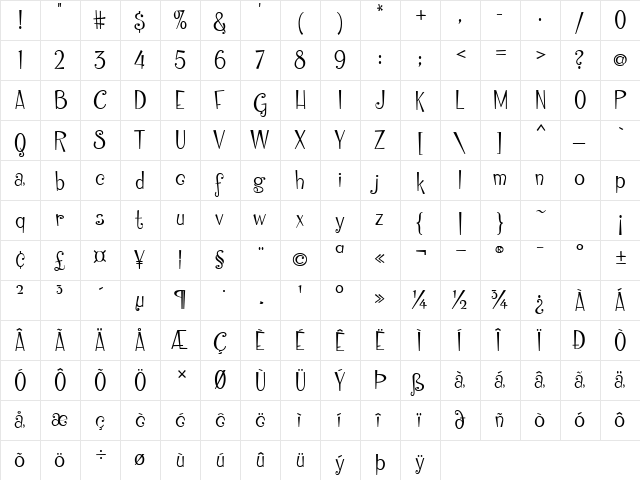
Cinderella Alt Figures ITC TT Regular
| Foundry | International Typeface Corporation |
| Designer | Patricia Lillie |
Design Context for Cinderella Alt Figures ITC TT Typeface
Cinderella Alt Figures ITC TT is a composed and adaptable typeface that performs quietly and consistently across a wide range of design contexts.